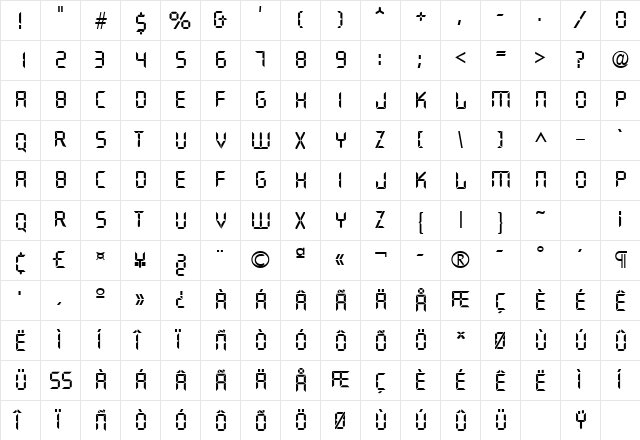
Quartz DB Regular
Design Context for Quartz DB Typeface
Quartz DB is a composed and adaptable typeface that performs quietly and consistently across a wide range of design contexts.